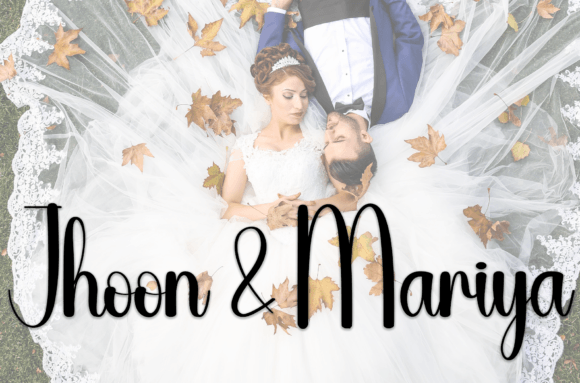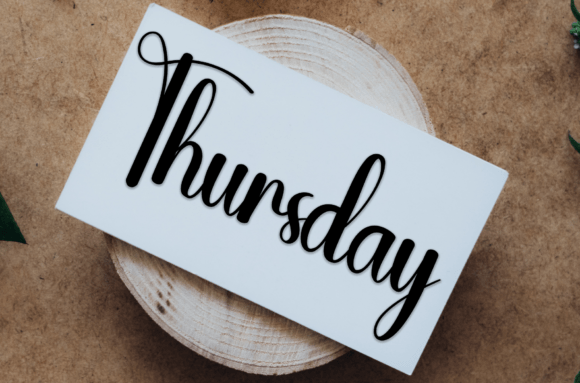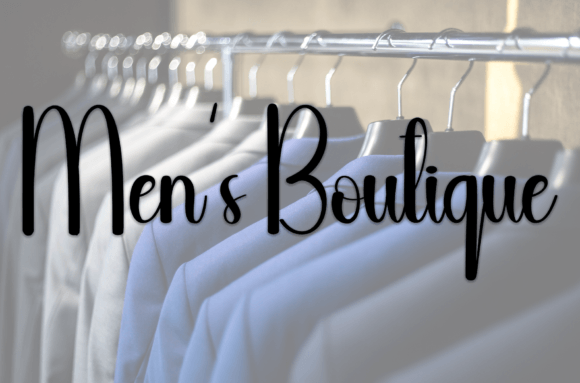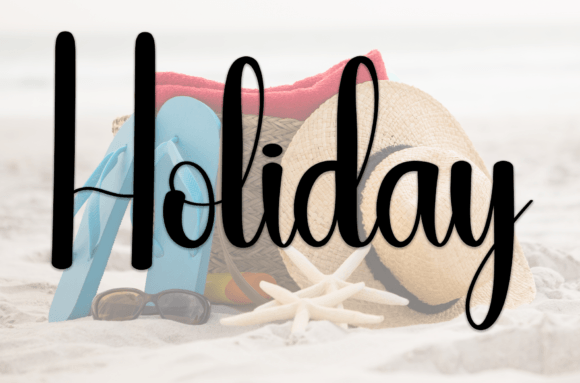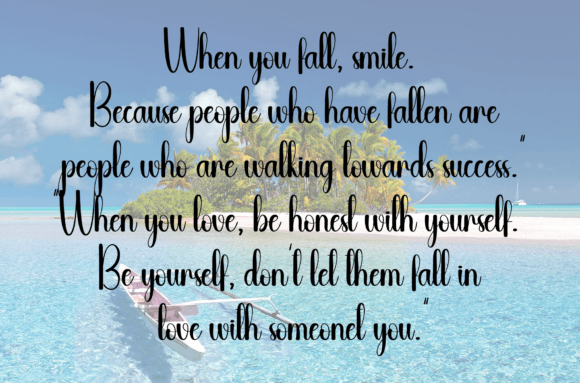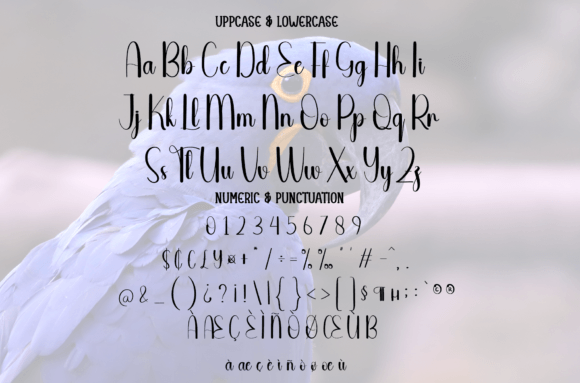
Introducing Bluebird Font: The Sweet and Friendly Handwritten Display Font
Are you looking for a font that can add a touch of whimsy and playfulness to your designs? Look no further than Bluebird Font! This sweet and friendly handwritten display font is perfect for creating eye-catching wedding invitations, cards, and other designs that require a fun and personal touch.
What Makes Bluebird Font Special?
Bluebird Font is a unique and charming font that is sure to capture the hearts of designers and crafters alike. Its cute and fun design makes it ideal for a wide range of projects, from wedding invitations and cards to posters, flyers, and social media graphics. The font’s friendly and approachable feel makes it perfect for designs that require a personal touch.
Key Features of Bluebird Font
- Handwritten display font: Bluebird Font is a handwritten display font that is designed to add a touch of personality to your designs.
- Cute and fun: The font’s cute and fun design makes it perfect for creating eye-catching and engaging designs.
- Ideal for wedding invitations and cards: Bluebird Font is perfect for creating beautiful and unique wedding invitations, cards, and other paper crafts.
- Easy to read: Despite its playful design, Bluebird Font is easy to read and understand, making it perfect for designs that require a clear and concise message.
How to Use Bluebird Font in Your Designs
Bluebird Font is a versatile font that can be used in a wide range of designs. Here are some ideas to get you started:
- Wedding invitations: Use Bluebird Font to create beautiful and unique wedding invitations that will set the tone for the big day.
- Cards: Add a personal touch to your cards with Bluebird Font, perfect for birthdays, anniversaries, and other special occasions.
- Posters and flyers: Use Bluebird Font to create eye-catching posters and flyers that will grab the attention of your audience.
- Social media graphics: Add a touch of personality to your social media graphics with Bluebird Font, perfect for creating engaging and shareable content.
Bluebird Font is a sweet and friendly handwritten display font that is perfect for adding a touch of whimsy and playfulness to your designs. With its cute and fun design, easy readability, and versatility, Bluebird Font is a great choice for designers and crafters alike. Whether you’re creating wedding invitations, cards, or other designs, Bluebird Font is sure to bring a smile to your audience’s face.